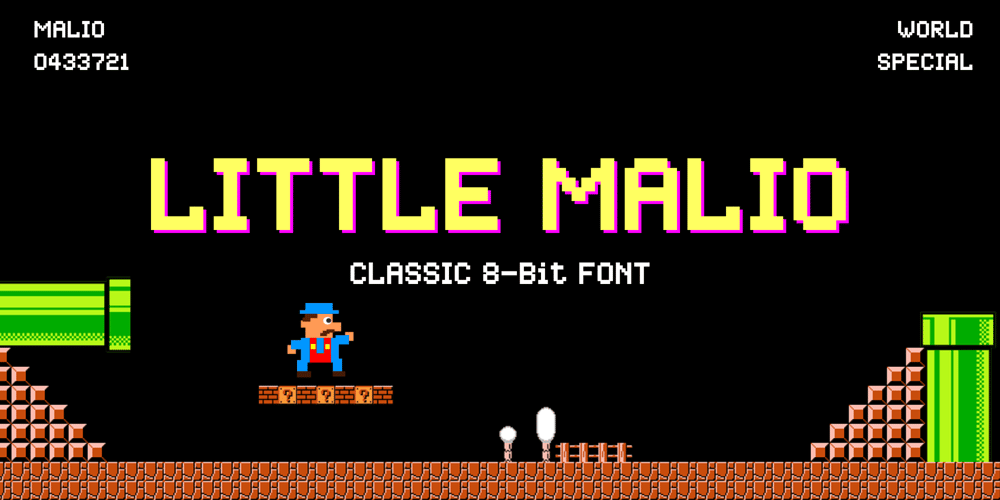
Little Malio Font Family was designed by Akhmad Afandhi and published by Evo Studio. Little Malio contains 1 styles and family package options. Little Malio 8-Bit is a sci-fi, technological display font. It can be used to a variety of designs, related to the gaming or digital world.